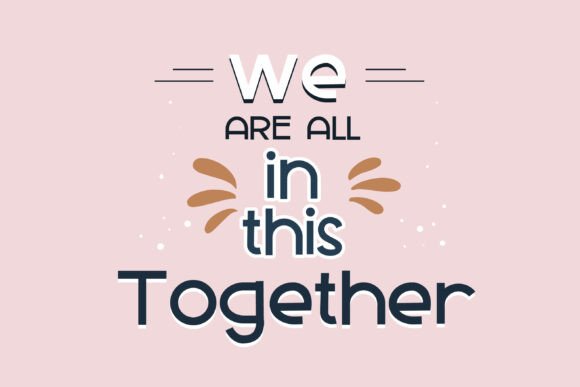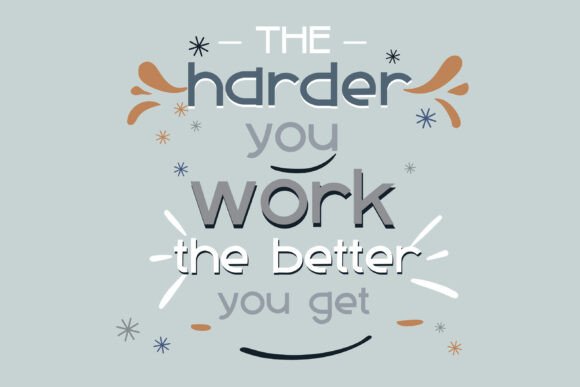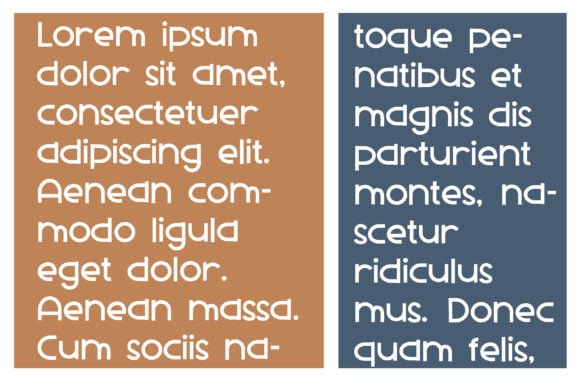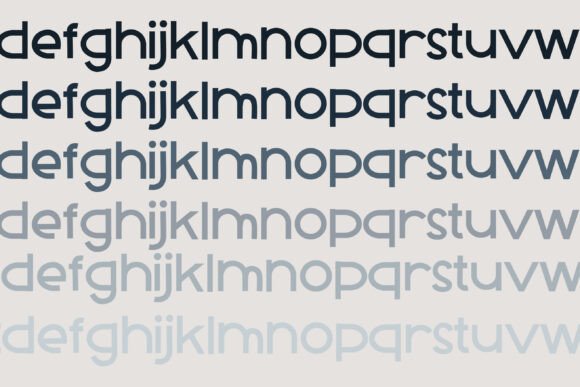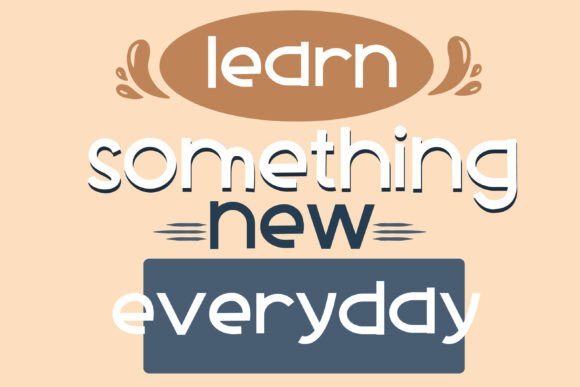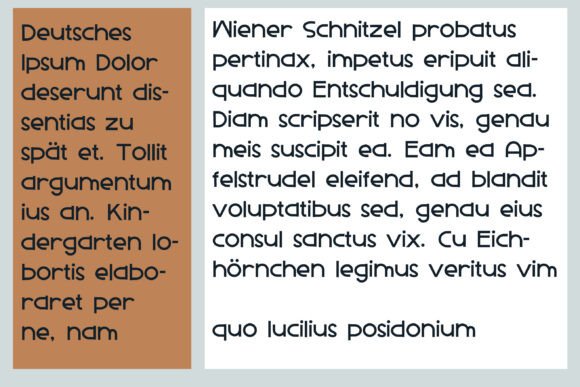
Introducing Bojangle Font: A Hand-Crafted Sans Serif for Creative Projects
Are you a designer or crafter looking for a unique and personalized font to add a touch of warmth and character to your projects? Look no further than Bojangle Font, a hand-crafted sans serif font that’s squatty, wide, and full of personality. In this article, we’ll explore the features and benefits of Bojangle Font, and discuss how it can be used to elevate your designs and crafts.
A hand-crafted font is a font that is designed to look like it was written by hand. It’s often used for invitations, greeting cards, and other items where a personal touch is desired. Handwritten fonts can be either formal or informal, and they can be used for a variety of purposes, from digital designs to print materials.
Hand-crafted fonts like Bojangle Font are created by skilled designers who use a combination of traditional techniques and digital tools to craft each letter and character by hand. This process gives the font a unique, human touch that’s hard to replicate with automated font creation tools.
Features of Bojangle Font
Bojangle Font is a sans serif font that’s characterized by its squatty, wide letterforms. The font is hand-crafted, which gives it a distinctive, handmade feel that’s perfect for designs and crafts that require a personal touch.
One of the standout features of Bojangle Font is its light version, which provides a subtle, elegant alternative to the regular font. This makes it easy to use Bojangle Font in a variety of contexts, from digital designs to print materials.
Benefits of Using Bojangle Font
So why choose Bojangle Font for your designs and crafts? Here are just a few benefits of using this unique font:
- Personal touch**: Bojangle Font adds a personal touch to your designs and crafts, making them feel more handmade and unique.
- Flexibility**: The font’s sans serif design and wide letterforms make it easy to use in a variety of contexts, from digital designs to print materials.
- Elegance**: The light version of Bojangle Font provides a subtle, elegant alternative to the regular font, making it perfect for designs and crafts that require a more refined look.
Using Bojangle Font in Your Designs and Crafts
Bojangle Font is a versatile font that can be used in a wide range of designs and crafts, including:
- Invitations and greeting cards**: Add a personal touch to your invitations and greeting cards with Bojangle Font’s handmade, sans serif design.
- Digital designs**: Use Bojangle Font in your digital designs, such as social media graphics, blog posts, and email newsletters.
- Print materials**: Bojangle Font is perfect for print materials, such as brochures, flyers, and posters.
- Crafting projects**: Use Bojangle Font to add a personal touch to your crafting projects, such as scrapbooking, journaling, and card making.
Tips for Getting the Most Out of Bojangle Font
Here are a few tips for getting the most out of Bojangle Font:
- Experiment with different sizes and colors**: Bojangle Font looks great in a variety of sizes and colors, so don’t be afraid to experiment and find the combination that works best for your design or craft.
- Pair with other fonts**: Bojangle Font pairs well with other fonts, so try combining it with a serif font or a script font to create a unique and interesting look.
- Use the light version**: The light version of Bojangle Font provides a subtle, elegant alternative to the regular font, so be sure to use it in designs and crafts where a more refined look is desired.
Bojangle Font is a unique and versatile hand-crafted sans serif font that’s perfect for designers and crafters looking to add a personal touch to their projects. With its squatty, wide letterforms and elegant light version, Bojangle Font is sure to become a go-to font in your design or crafting arsenal. So why not give it a try and see how Bojangle Font can elevate your designs and crafts?